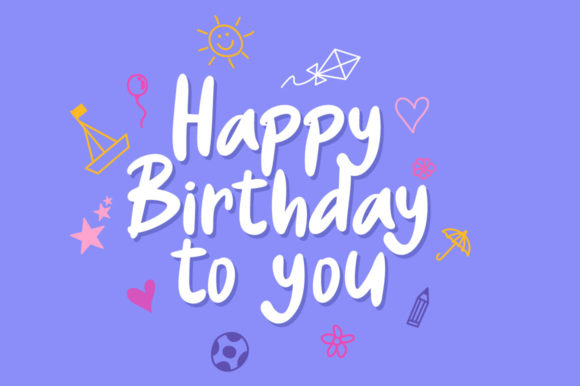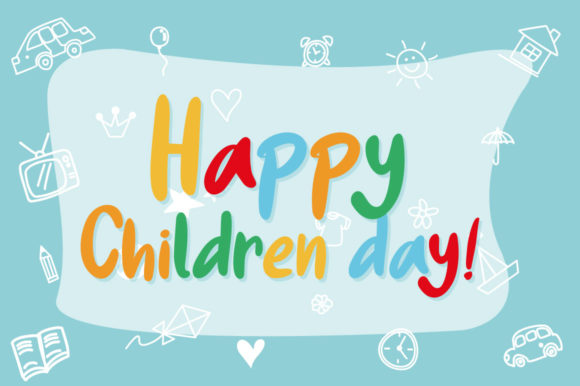
Babygirl Font
db-ku.com - Script & Handwritten -- Babygirl is a cool, friendly and organic handwritten font. No matter the topic, this font will be an incredibly asset to your fonts’ library, as it has the potential to elevate any creation.